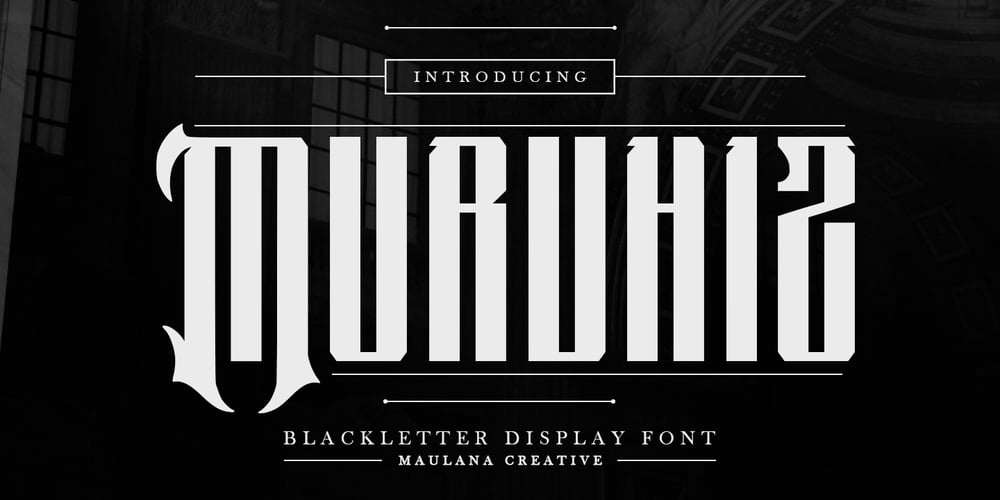
MC Murvhiz
MC Murvhiz font
MC Murvhiz Font Family was designed by Gilang Maulana and published by Maulana Creative. MC Murvhiz contains 1 styles and family package options. Murvhiz blackletter display font. Heavy stroke, vintage character with a awesome alternates. To give you an extra creative work. Murvhiz display font support multilingual language. This font is good for logo design, Social media, Movie Titles, Books Titles, a short text even a long text letter and good for your secondary text font with script or serif. Make a stunning work with Murvhiz blackletter display font. –UppercaseCheers,Maulana Creative